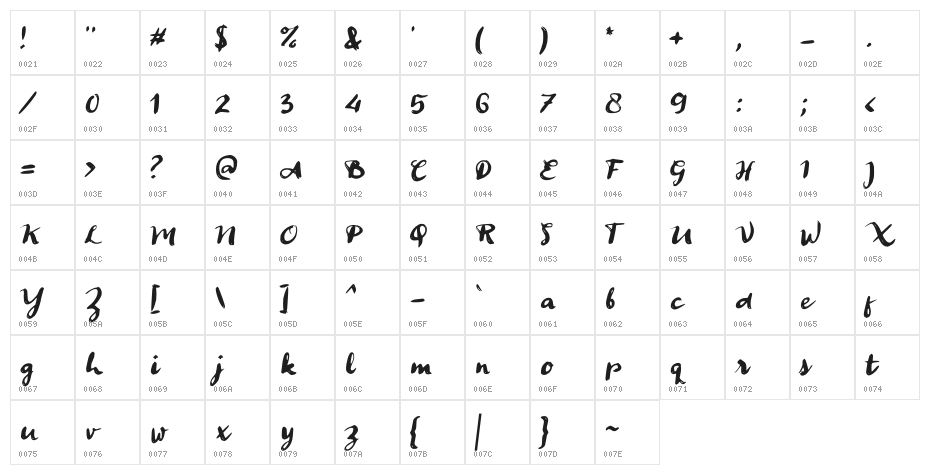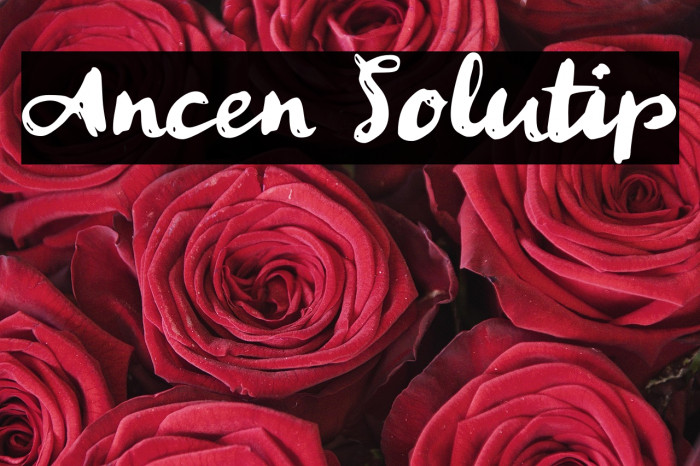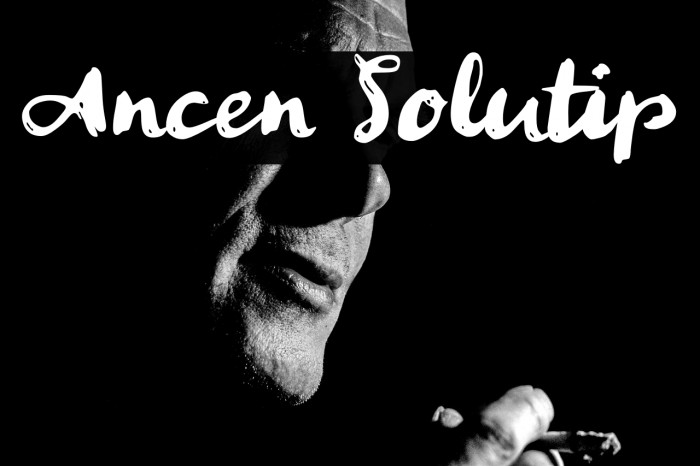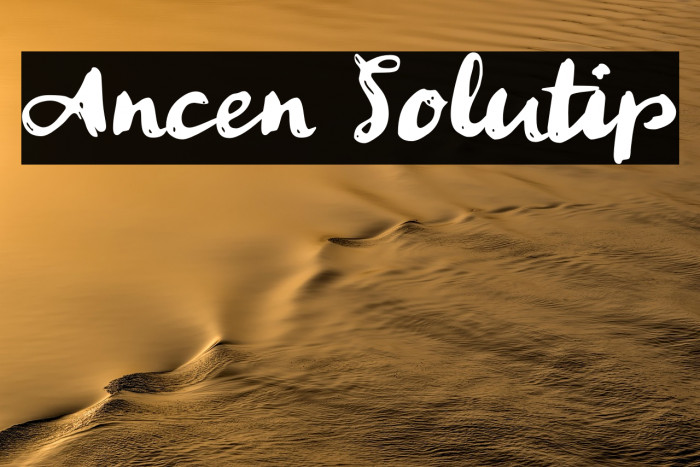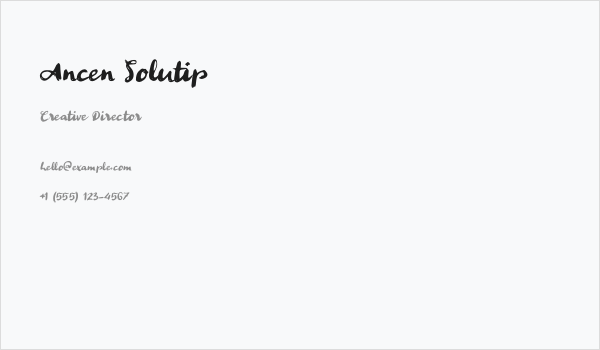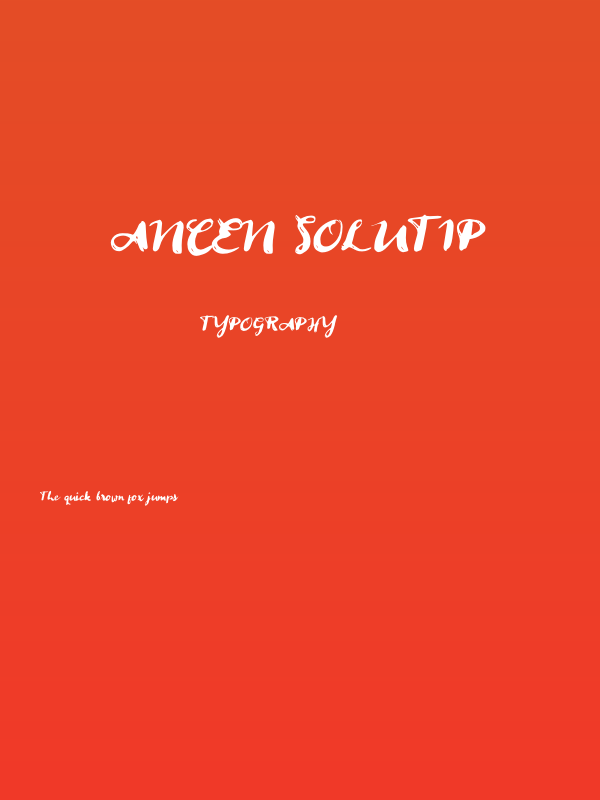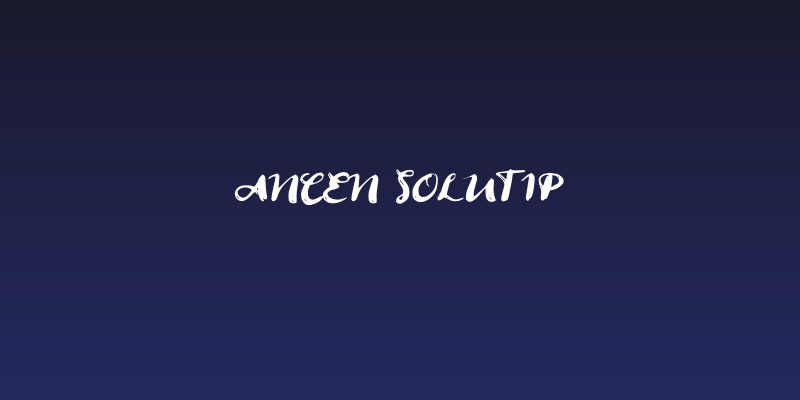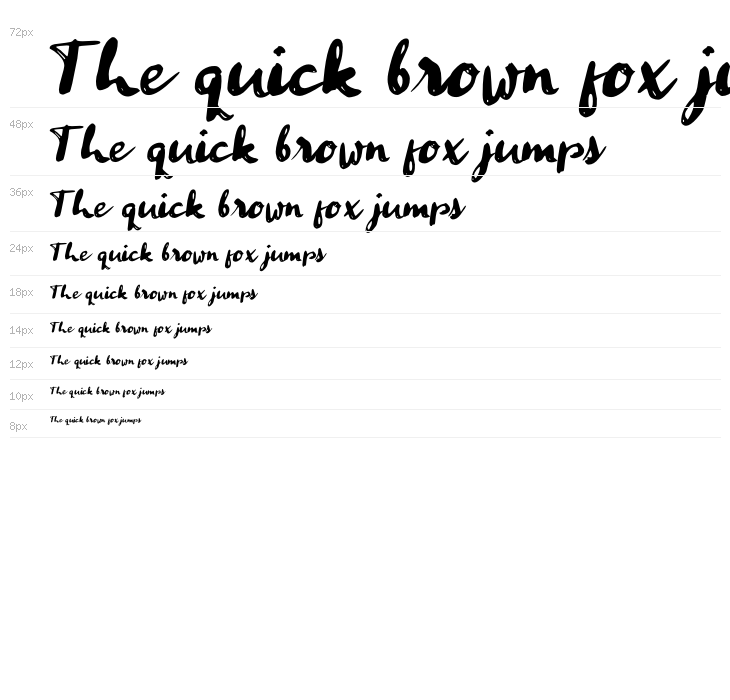
Ancen Solutip Font
Ancen Solutip Description
This font features a bold and expressive script style, characterized by its fluid and dynamic strokes. The letters are crafted with a brush-like appearance, giving them a hand-painted feel. Each character flows into the next with a sense of movement and energy, making it ideal for creative and artistic projects. The uppercase letters are bold and prominent, while the lowercase letters maintain a consistent style with slightly more subtlety. Numbers and special characters are designed to match the overall aesthetic, ensuring a cohesive look across all text. The font's unique style makes it stand out, perfect for making a statement in any design.
| Proposed Projects | Ideal for branding, logos, invitations, posters, and artistic projects that require a dynamic and creative touch. |